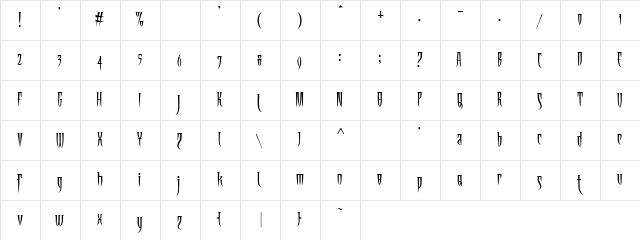
Ab Fangs Regular
Design Context for Ab Fangs Typeface
Ab Fangs is a composed and adaptable typeface that performs quietly and consistently across a wide range of design contexts.
Pro Tip: Pair Ab Fangs with a font of contrasting weight or personality to build a more expressive typographic hierarchy.